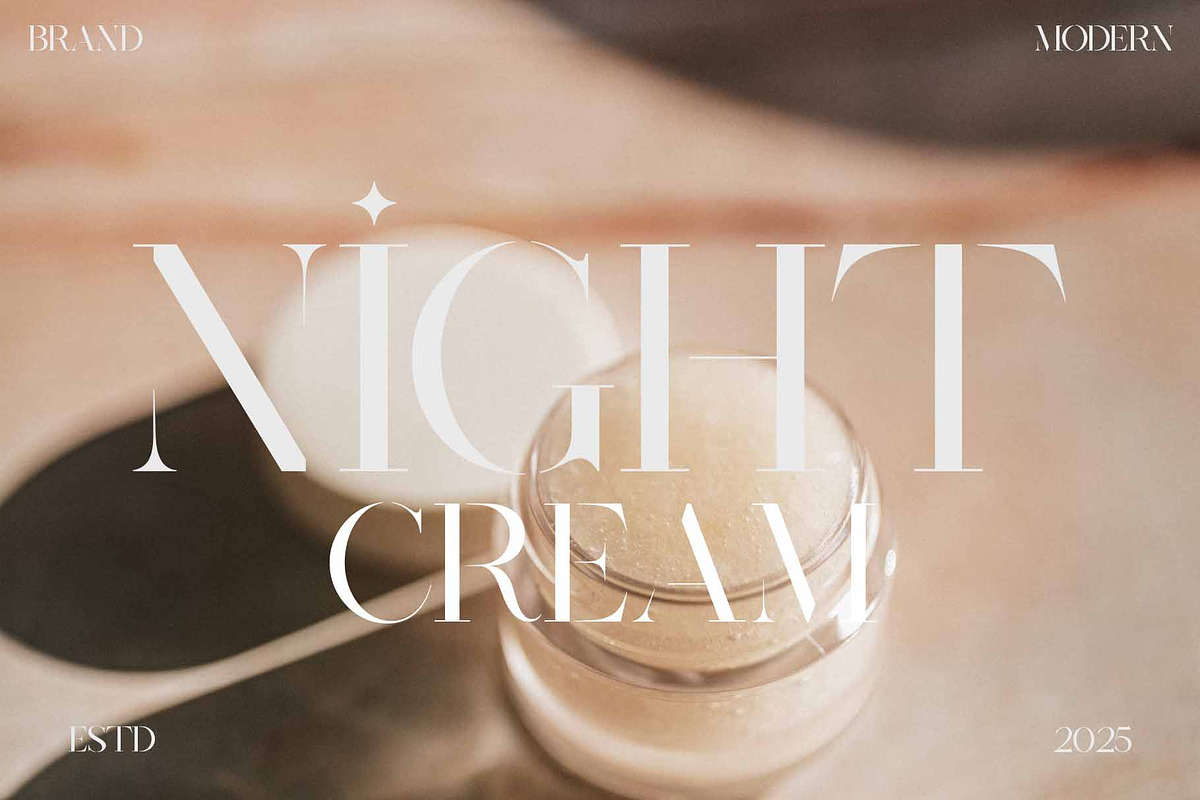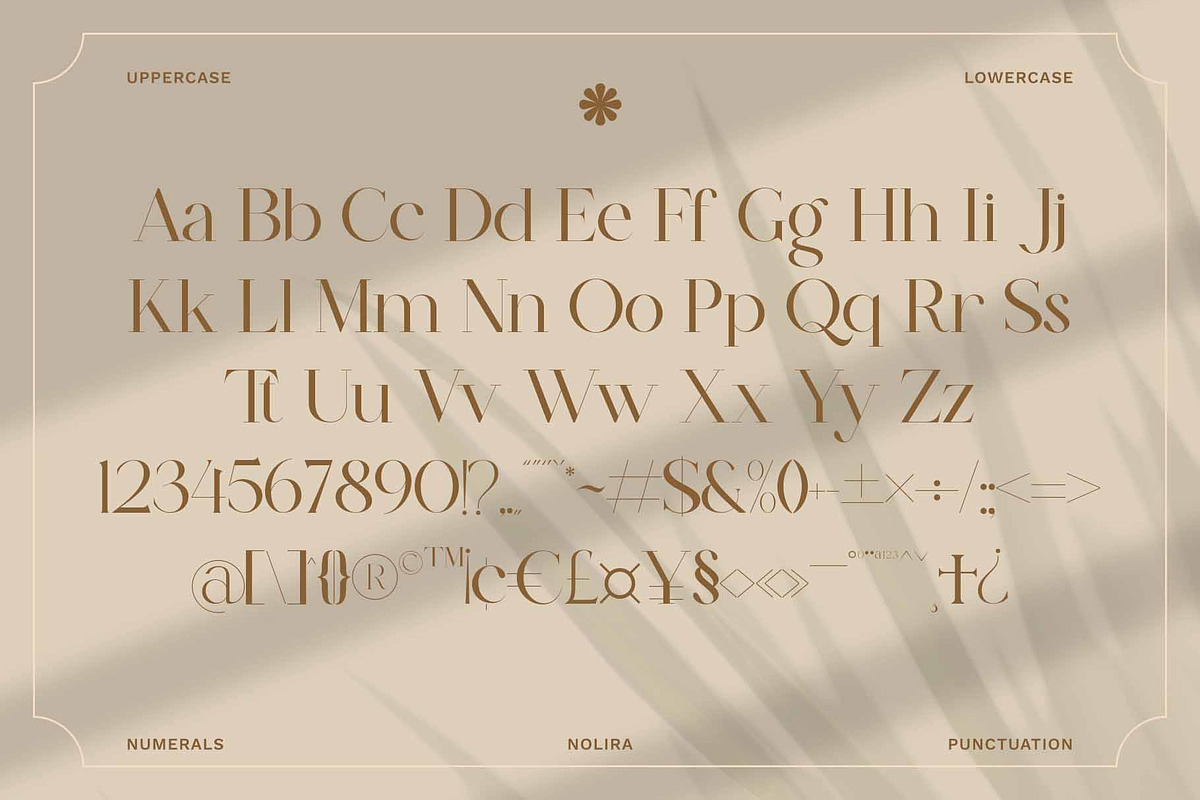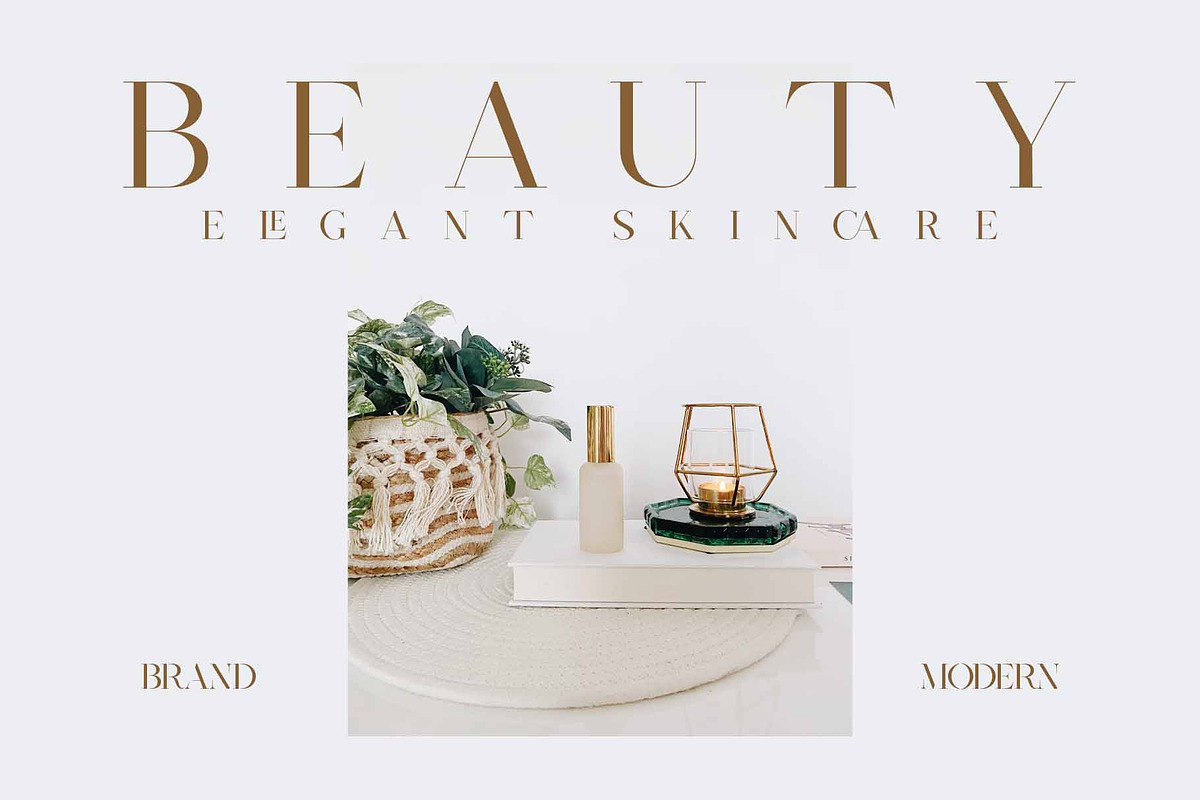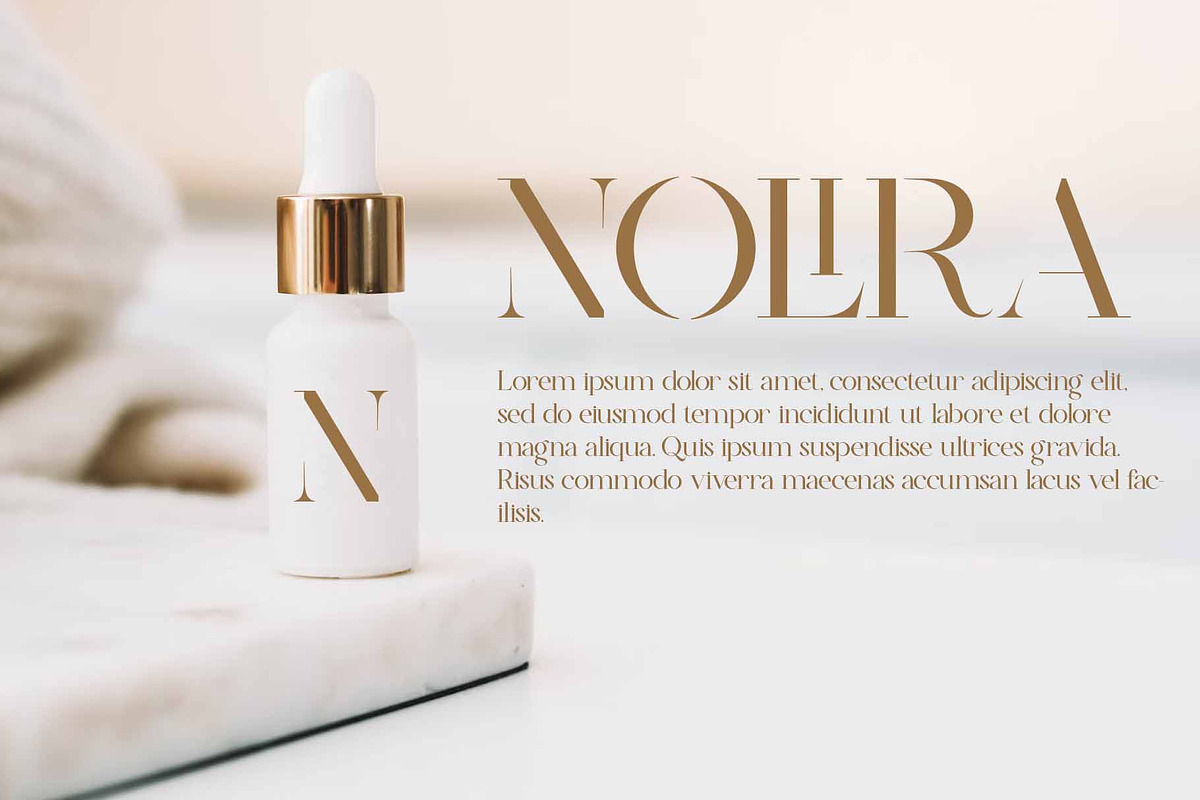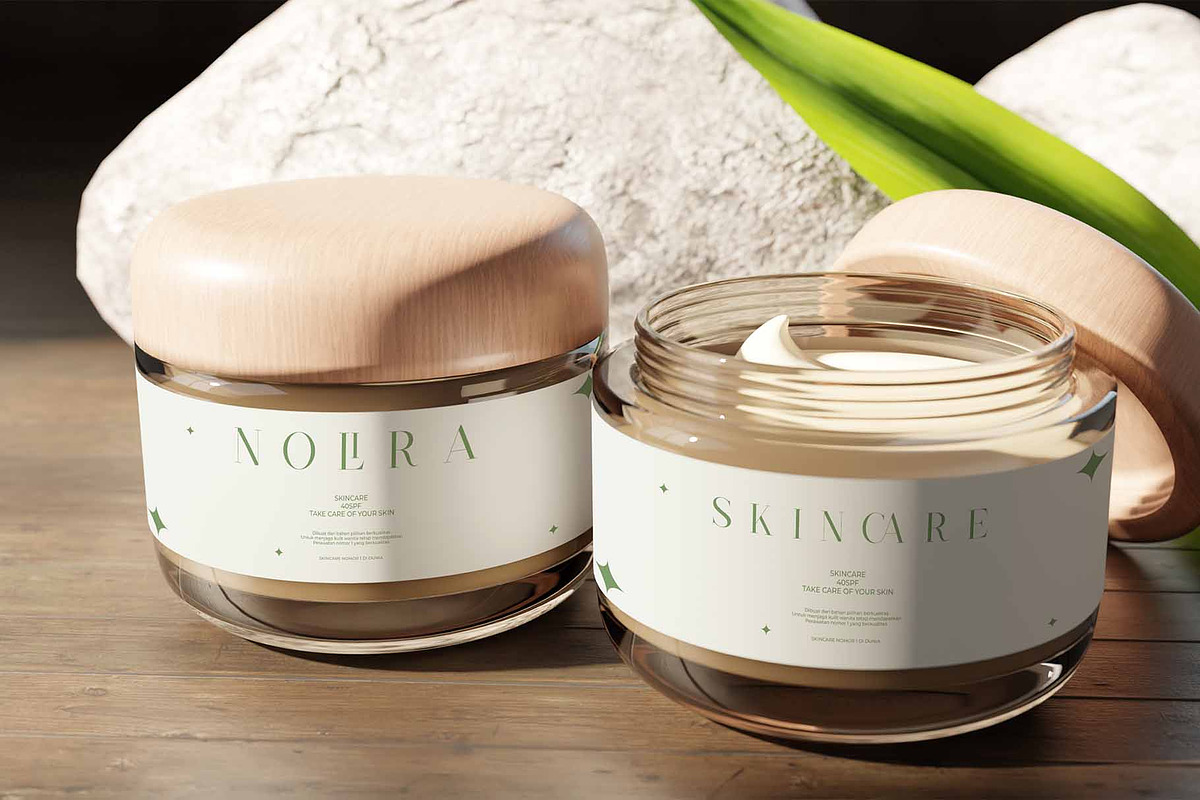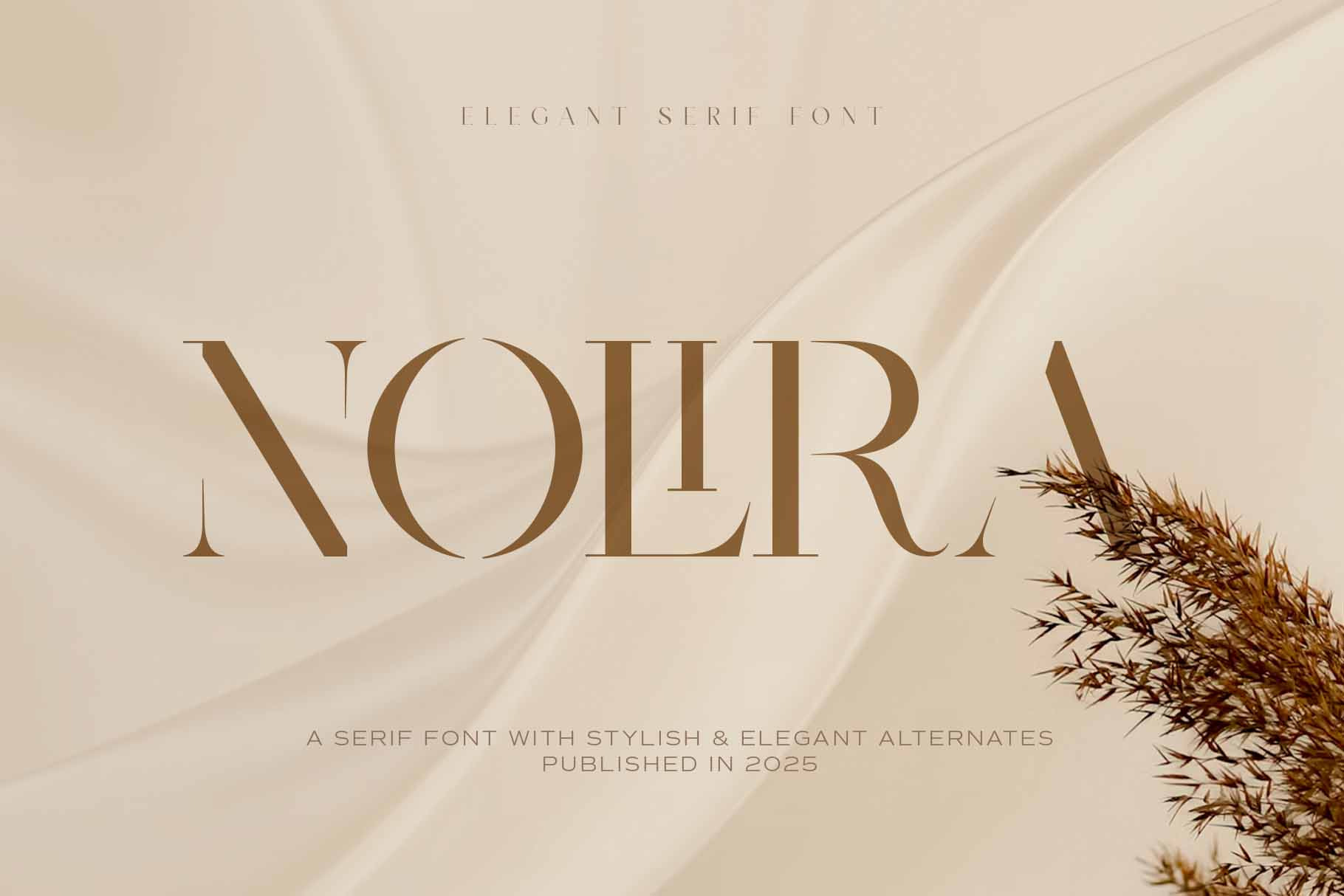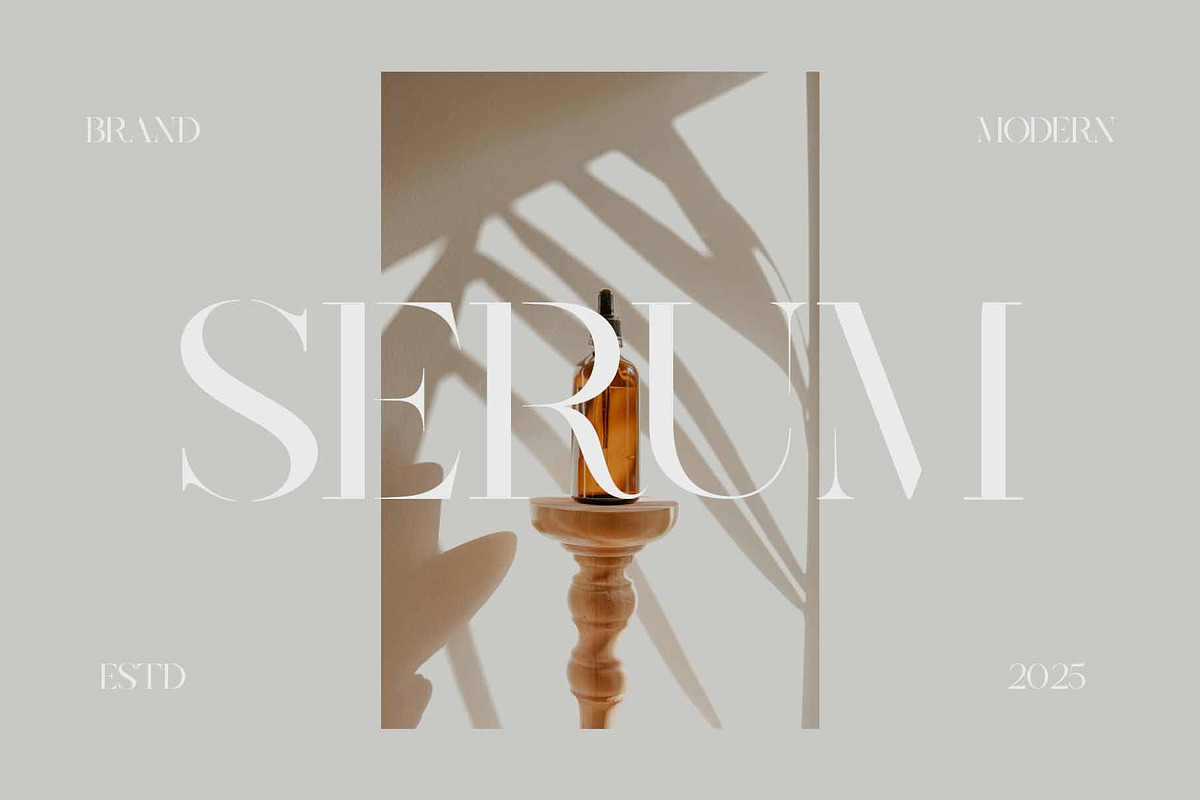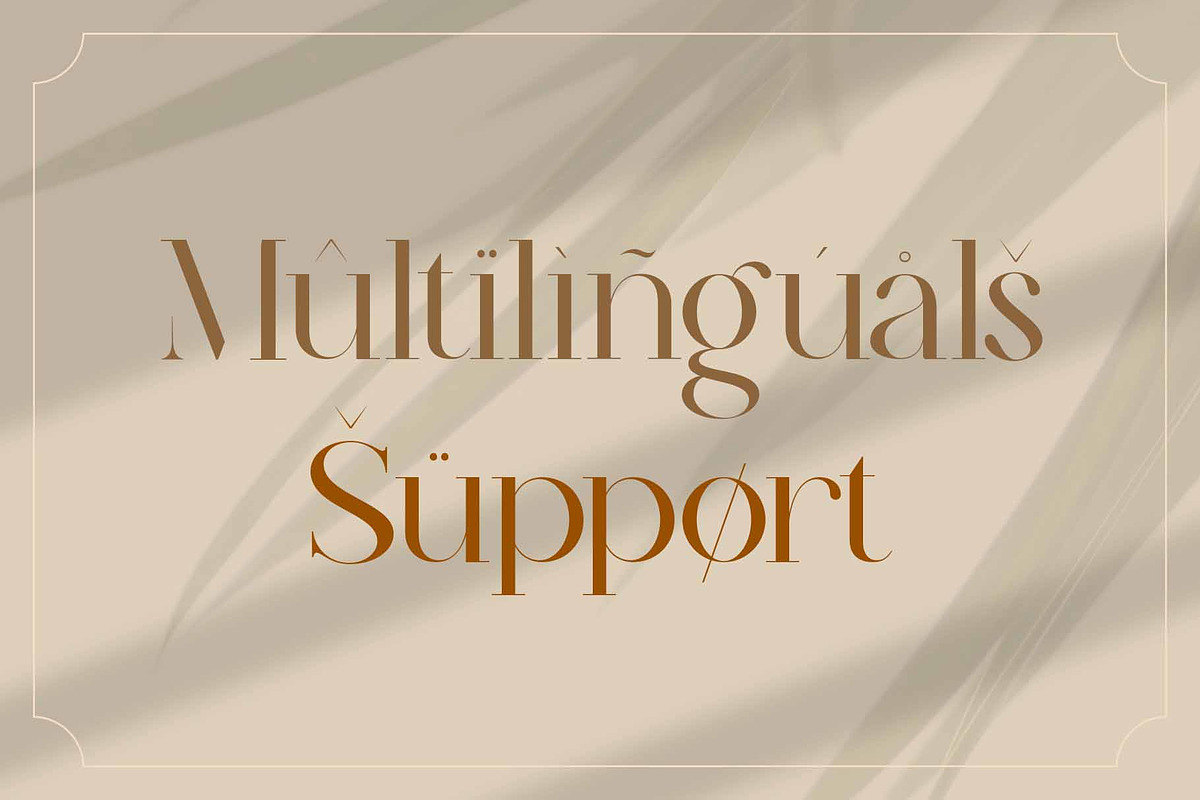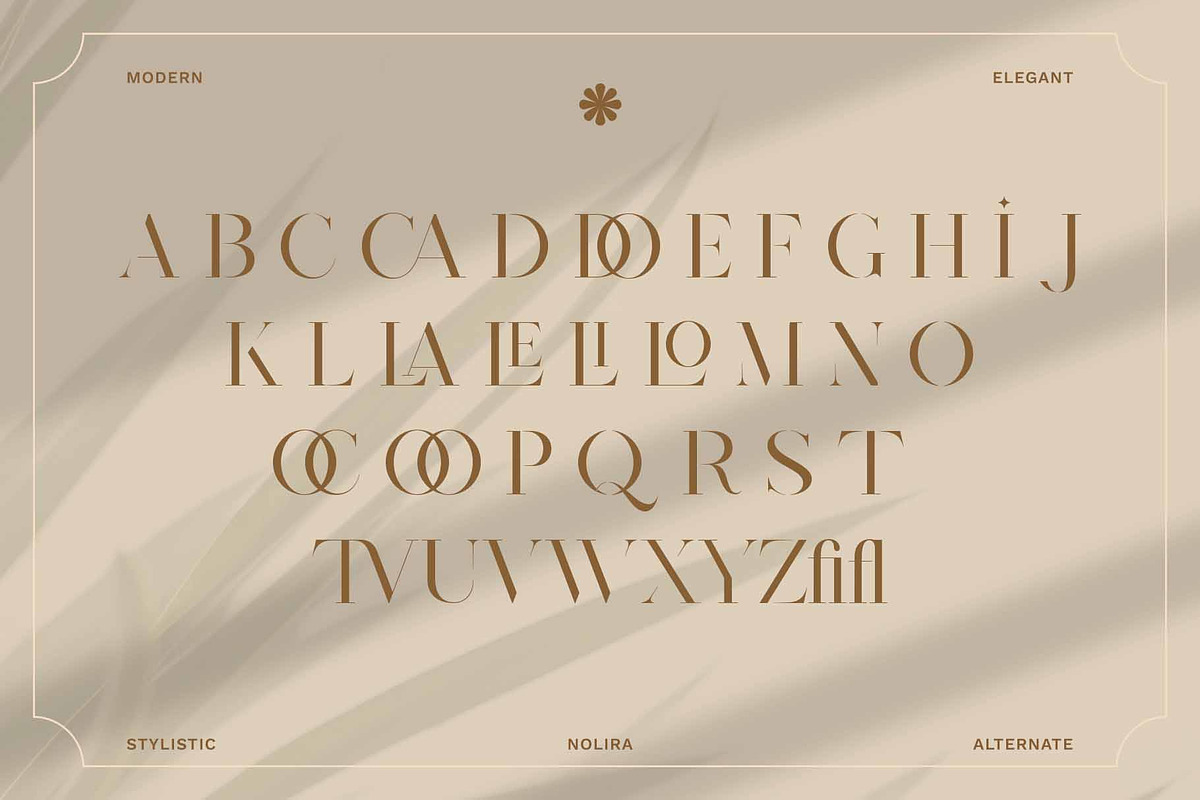
Nolira – Elegant Serif Font
NOLIRA is a modern serif typeface designed to evoke elegance and sophistication. With its sleek letterforms, refined curves, and timeless style, NOLIRA is perfect for luxury branding, high-end editorials, fashion logos, wedding invitations, and any design that demands a touch of class.
This font features stylish and elegant alternates, giving designers creative flexibility to craft unique and expressive layouts. Its high contrast strokes and sharp serif details strike a perfect balance between classic beauty and contemporary flair.
- Ligature & Stylistic alternate